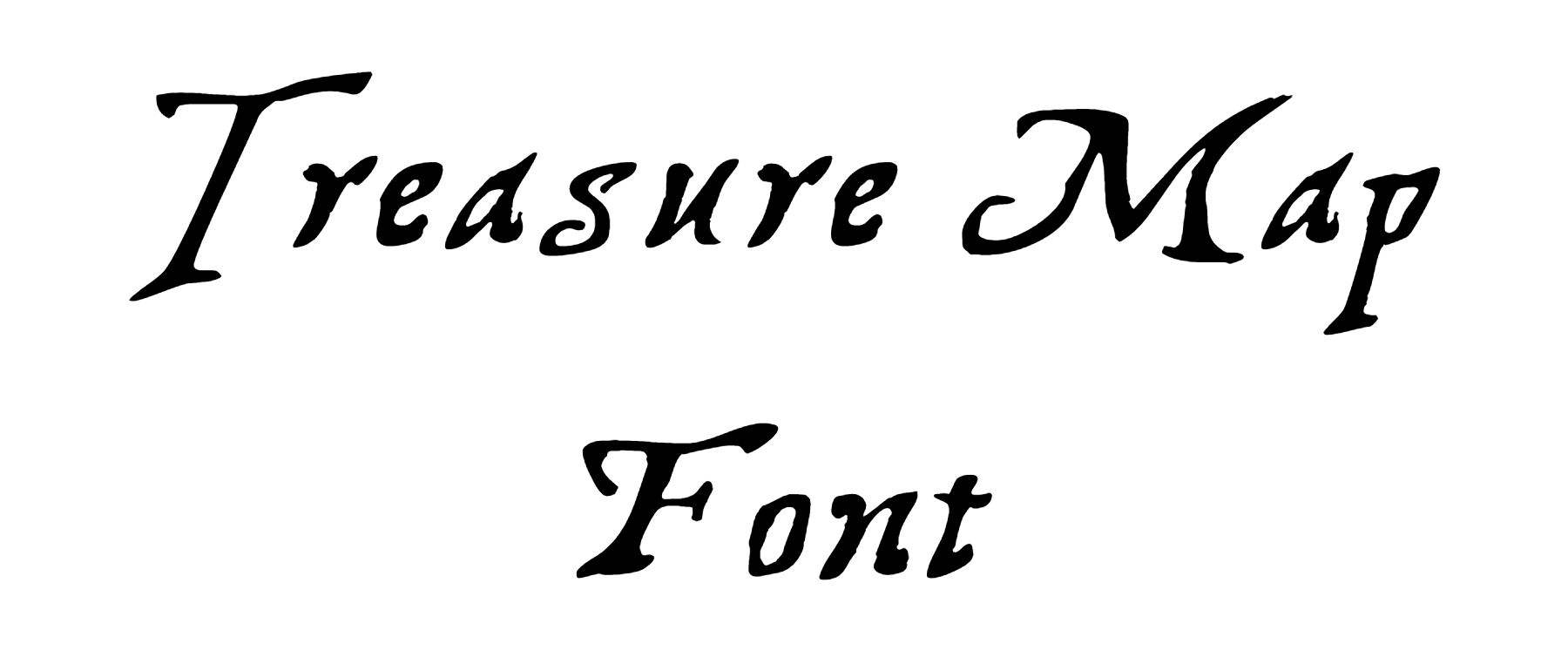
Treasure Map
Treasure Map is a fancy font. It's a decorative display font with plenty of personality, made to grab attention. It's a free download, and you can try it with your own text in the preview above first.
Treasure Map covers the full alphabet in upper and lowercase, plus all ten numbers, so you can set names, dates and prices without switching fonts. Everyday marks like &, !, ? and @ are there too. There are no accented letters like é or ñ, so it's best kept to English text.
Designers usually reach for fonts like Treasure Map when they're making posters, logos and eye-catching headlines. Use it for one standout word or headline and let simpler fonts handle the rest.